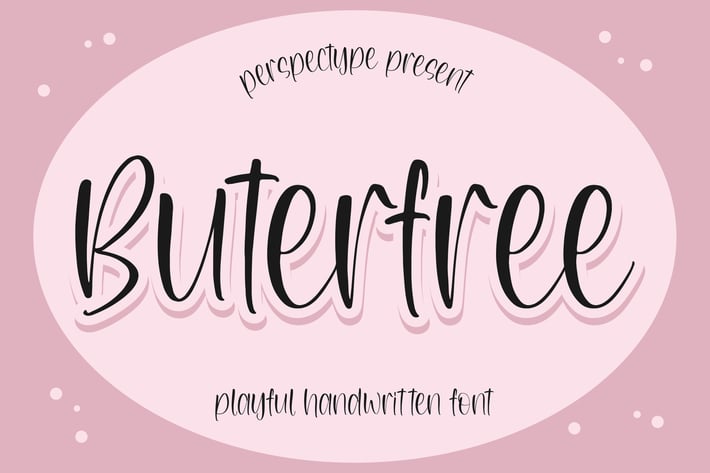
Buterfree Playful Handwritten Font
Buterfree Playful Handwritten Font is a cheerful and fun typeface designed to add a lighthearted touch to your creative projects. With its rounded strokes and friendly curves, this font radiates positivity and charm, making it perfect for both kids and lifestyle designs. It’s versatile enough for digital and print projects, helping your work stand out with a playful personality.
+ Playful and unique handwritten style
+ Uppercase & lowercase letters
+ Punctuation & numerals included
+ Multilingual support
+ Posters & flyers
+ Kids-related designs
+ Social media posts
+ Merchandise & apparel
+ Greeting cards & invitations
+ Branding projects
+ DIY crafts
Bring joy and playfulness to your projects with Buterfree Playful Handwritten Font – where every word smiles back at you!